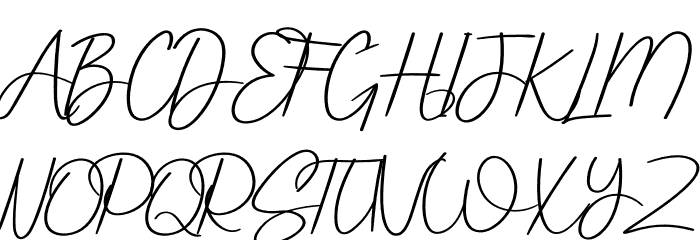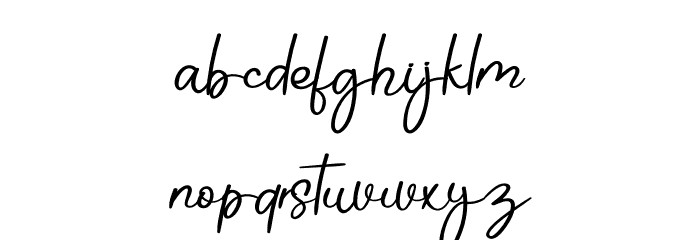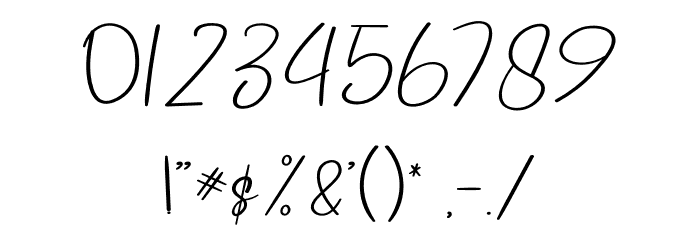
Willona Font
A flowing, cursive script font with elegant loops and a handwritten style.
Elegant cursive script font.
- Proposed Projects: Invitations, greeting cards, personal branding.
- Use Case: Logos, Invitations